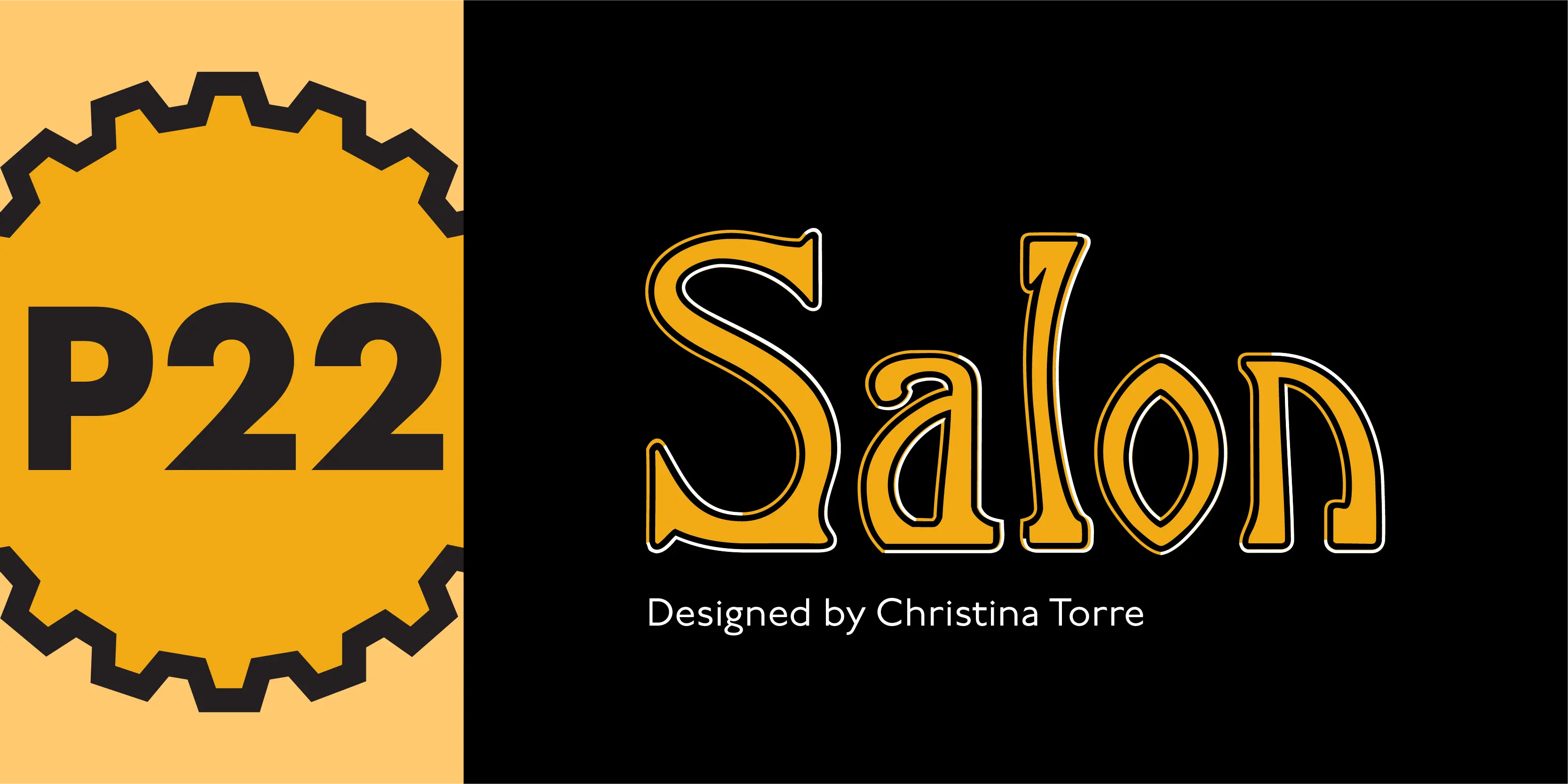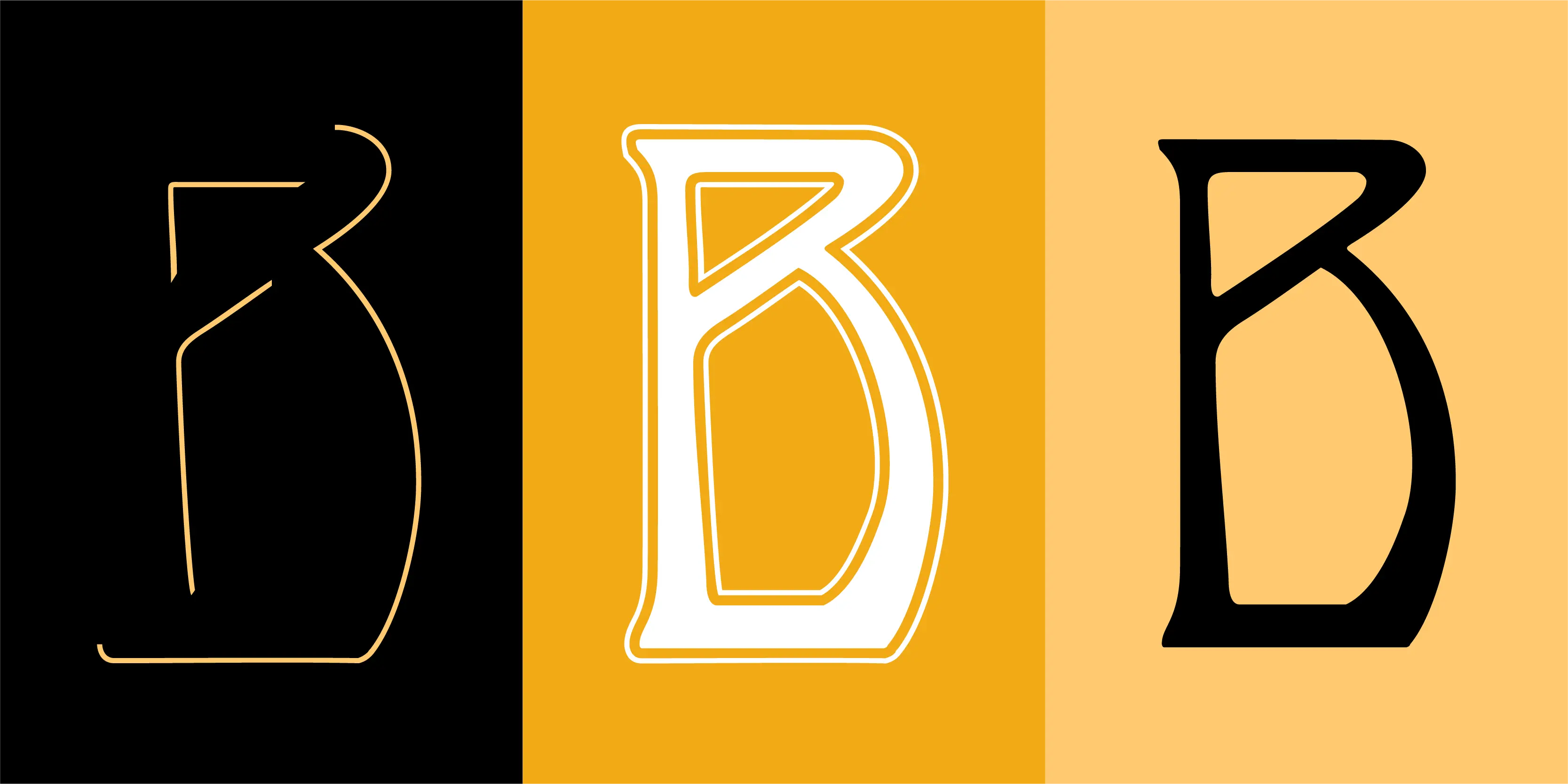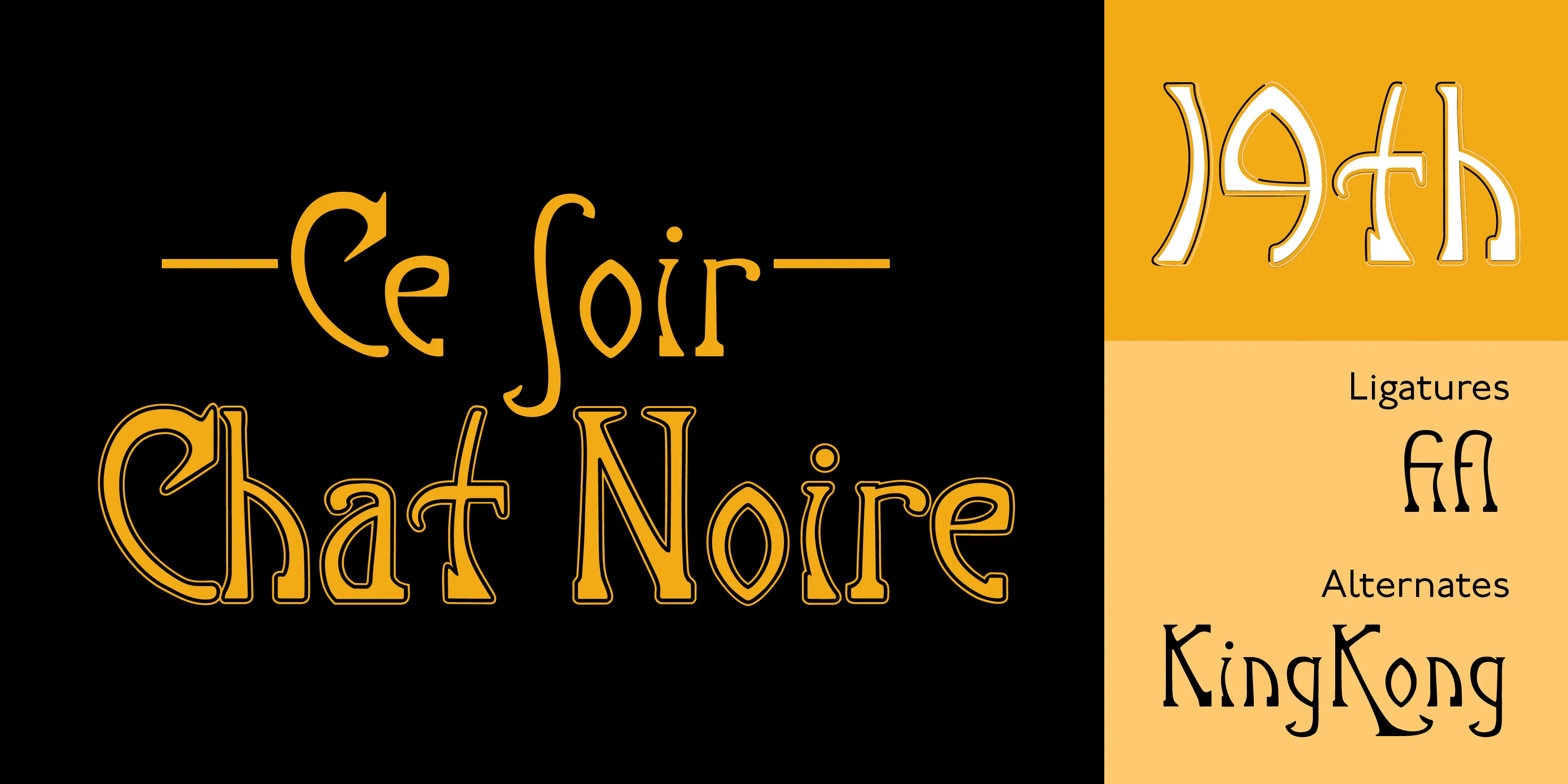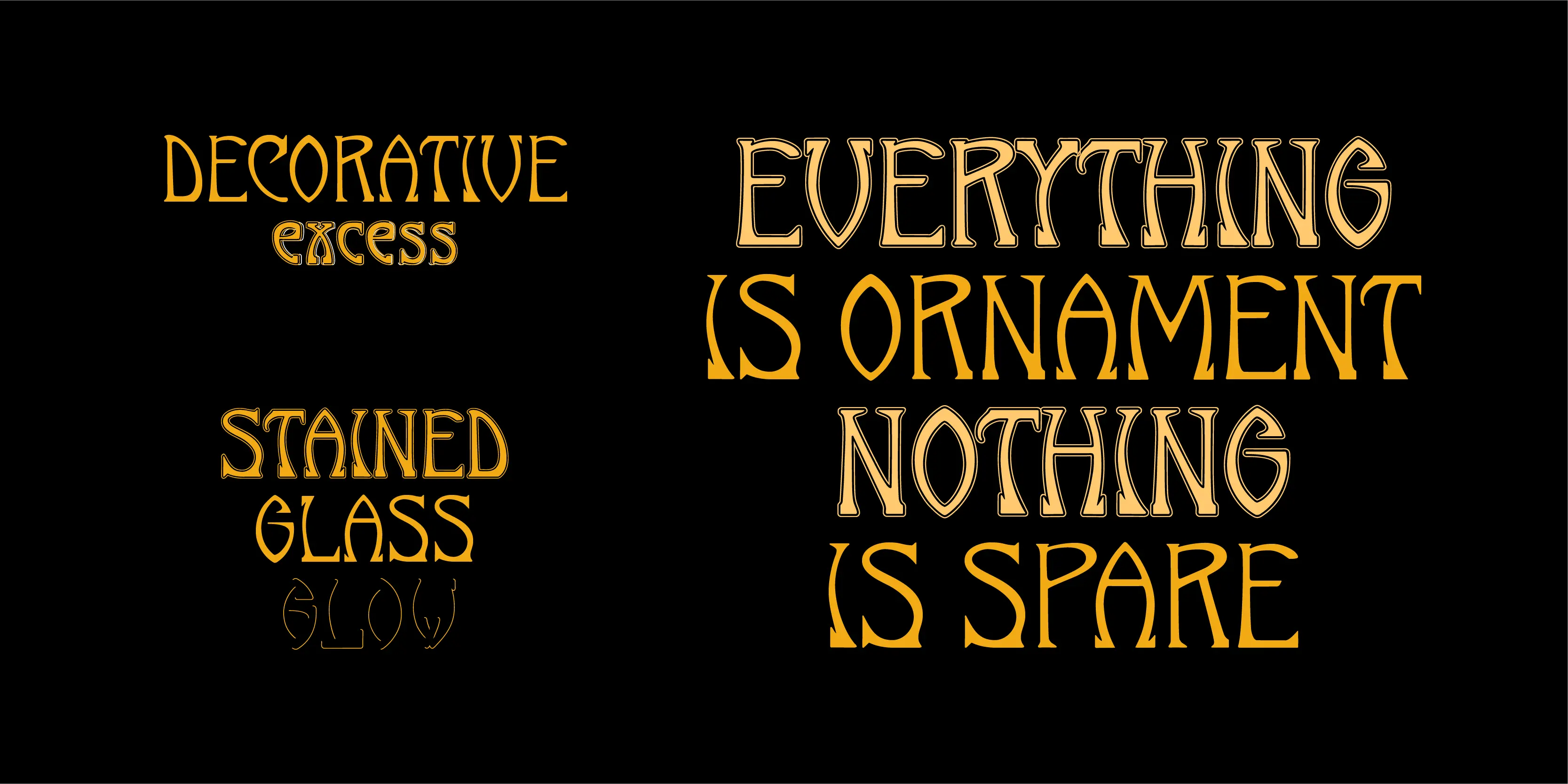
Salon Font Family
• Salon Shadow
• Salon Inner
• Salon Regular
Salon
P22 Salon was originally inspired by Art Nouveau lettering. In its development it began taking on a slightly more modern feel. All three variations were designed to be completely interchangeable with one another, and can be layered to achieve a variety of effects.